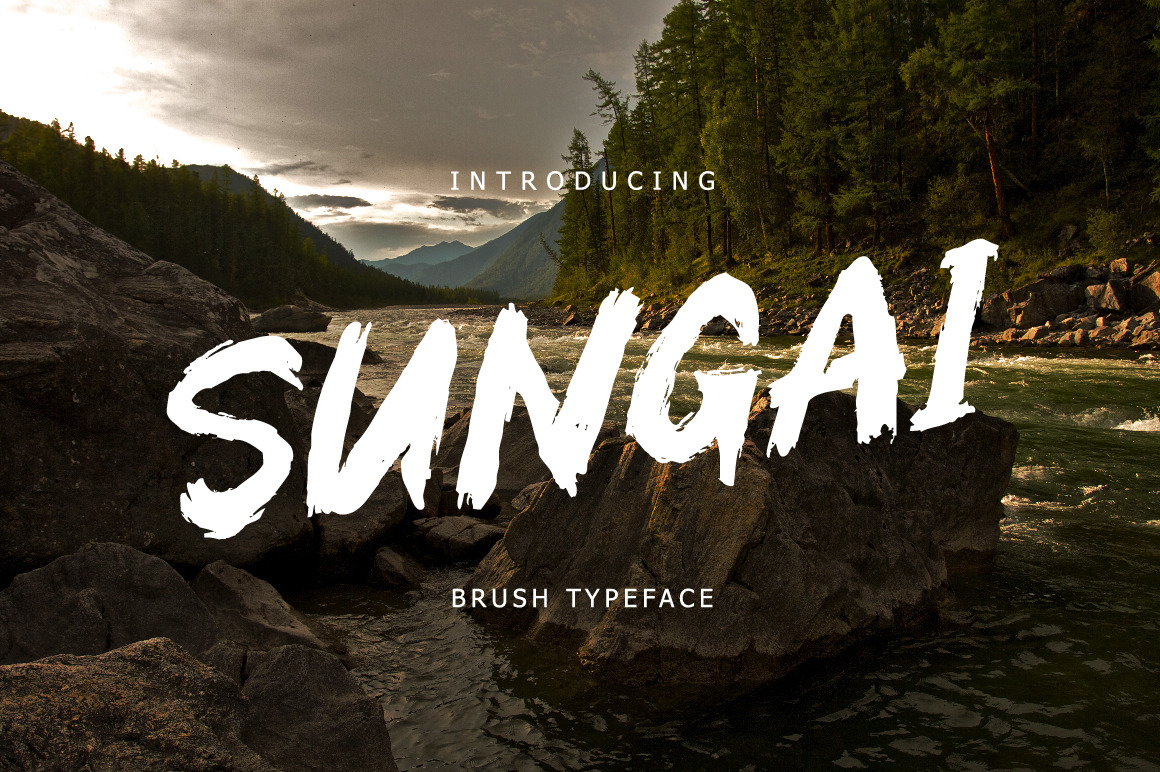
Sungai Brush Typeface
Sungai Brush Typeface is a dry handbrushed font with ragged edges.
Ideal for handwritten quotes, logos, product packaging, t-shirt, print, header, poster, nature photography and applicable for any graphic design.
Sungai Brush Typeface comes with all caps uppercase and lowercase characters, large set of punctuation glyphs, numerals, and supports international languages.